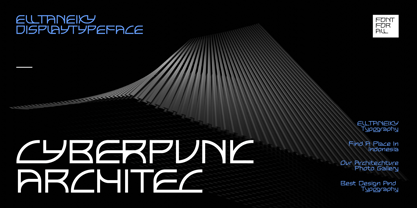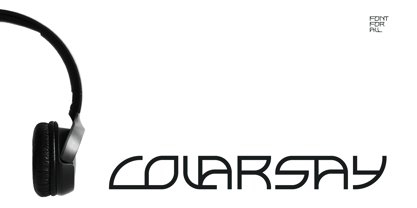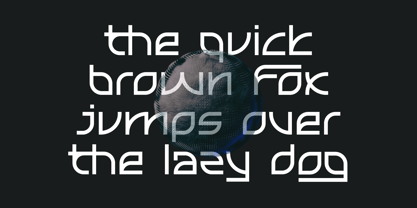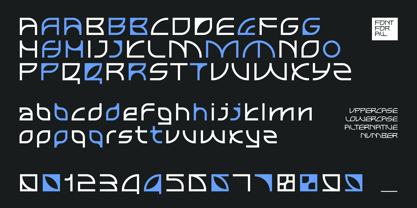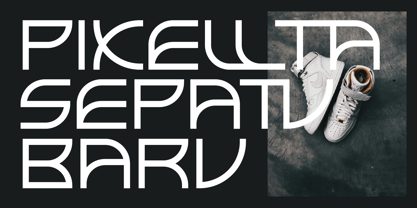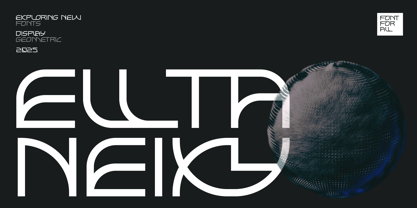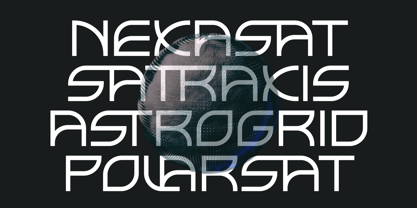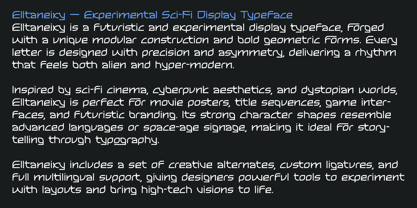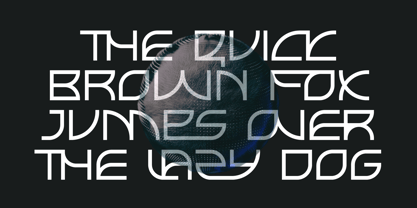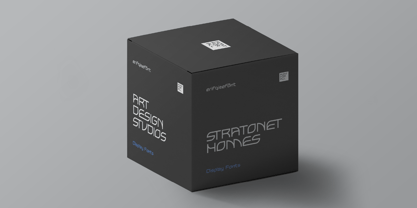
Elltaneixy
von Erifqizefont
Die Schriftfamilie Elltaneixy wurde von Eka Rifqi Setiawan entworfen und von Erifqizefont veröffentlicht. Elltaneixy enthält 1 Stile.
Elltaneixy — Experimental Sci-Fi Display Typeface
Elltaneixy is a futuristic and experimental display typeface, forged with a unique modular construction and bold geometric forms. Every letter is designed with precision and asymmetry, delivering a rhythm that feels both alien and hyper-modern.
Inspired by sci-fi cinema, cyberpunk aesthetics, and dystopian worlds, Elltaneixy is perfect for movie posters, title sequences, game interfaces, and futuristic branding. Its strong character shapes resemble advanced languages or space-age signage, making it ideal for storytelling through typography.
Packed with 57 custom ligatures and 31 stylistic alternates, along with full multilingual support, Elltaneixy gives designers powerful tools to experiment with layouts, create unique compositions, and bring high-tech visions to life.